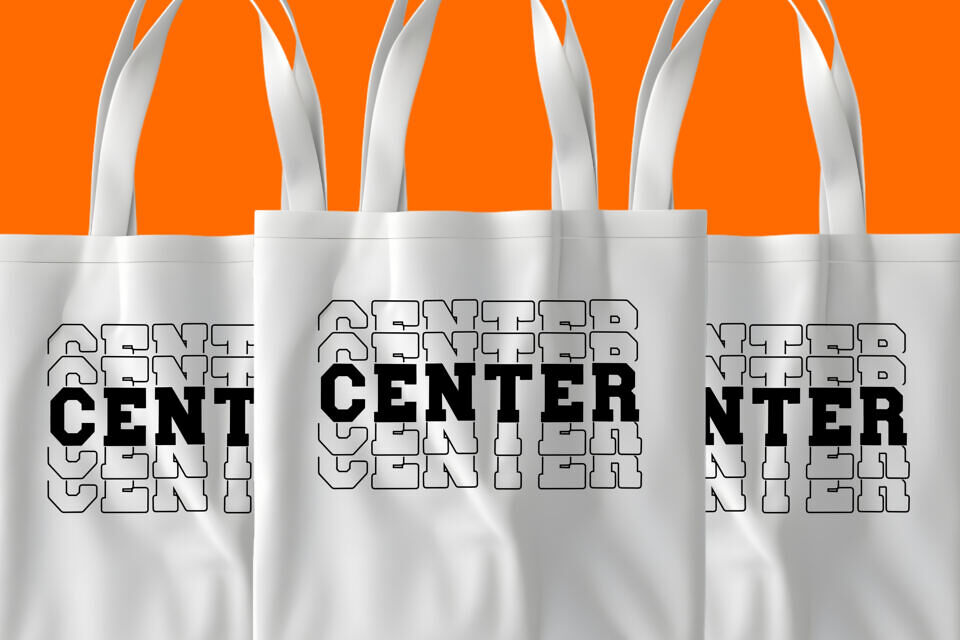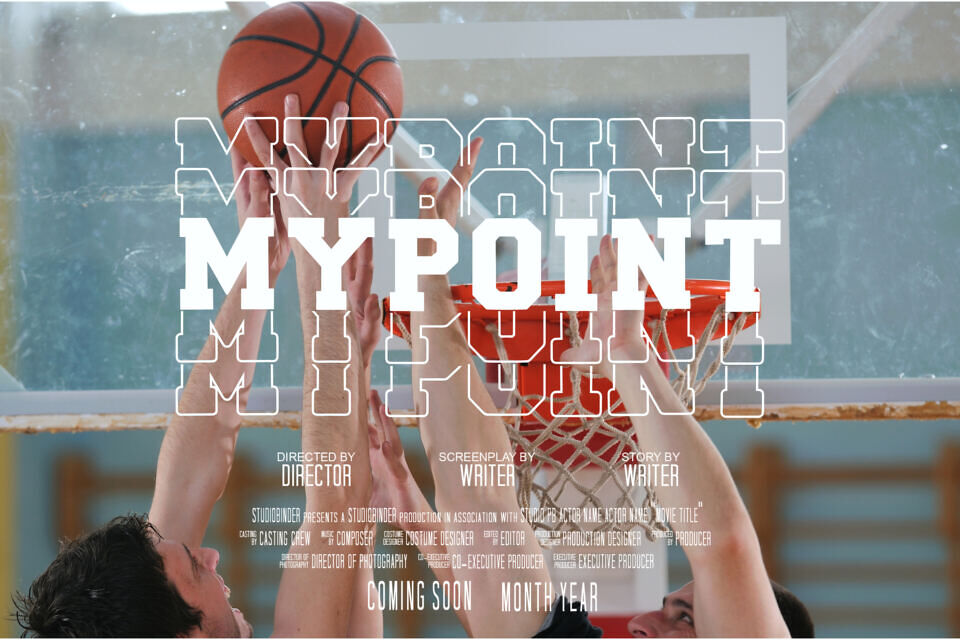
Scholar Stacked is a bold and structured stacked varsity font that brings school pride, sports intensity, and classic collegiate style into a fresh typographic format. With tall all-caps letters stacked in a vertical style, this font gives your designs a powerful, athletic feel that stands out. Whether you’re designing for school teams, college merch, graduation parties, or sportswear branding, Scholar Stacked brings the energy of varsity lettering with a twist.
This display font is designed specifically for projects that need to look strong, classic, and fun at the same time. The stacked varsity font structure sets it apart from typical horizontal fonts, allowing you to create titles, logos, or poster designs that feel bold and new—yet timeless. It’s the kind of typeface that turns heads on a team hoodie, pep rally banner, or YouTube gaming thumbnail.